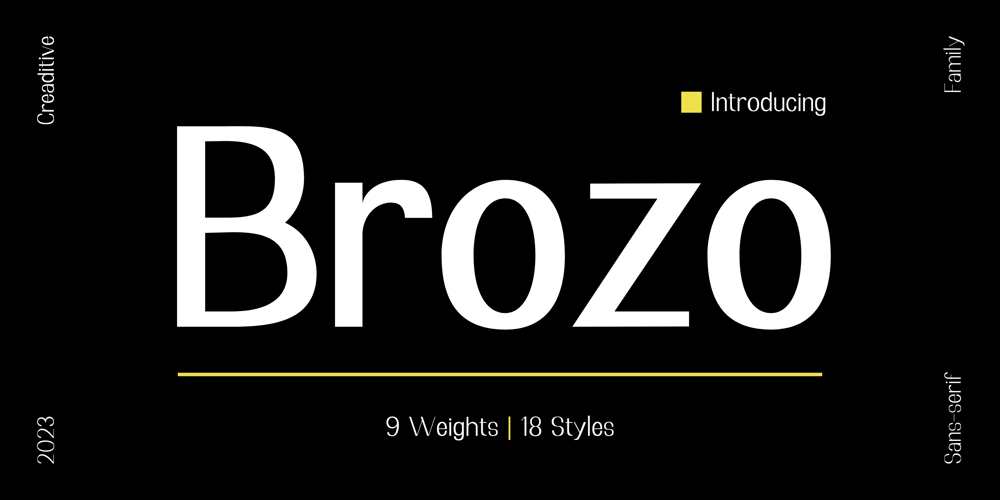
Brozo Font Family was designed by Aditiyo Dwi Putranto and published by Creaditive Design. Brozo contains 18 styles and family package options. Brozo typeface is a versatile font with 18 styles, ranging from thin to black, thin italic to black italic. Its captivating and elegant look, complemented by multilingual support and a standard character set, caters to diverse designs. Brozo’s minimalist yet sophisticated appeal ensures comfortable readability. Elevate your designs with Brozo’s perfection.